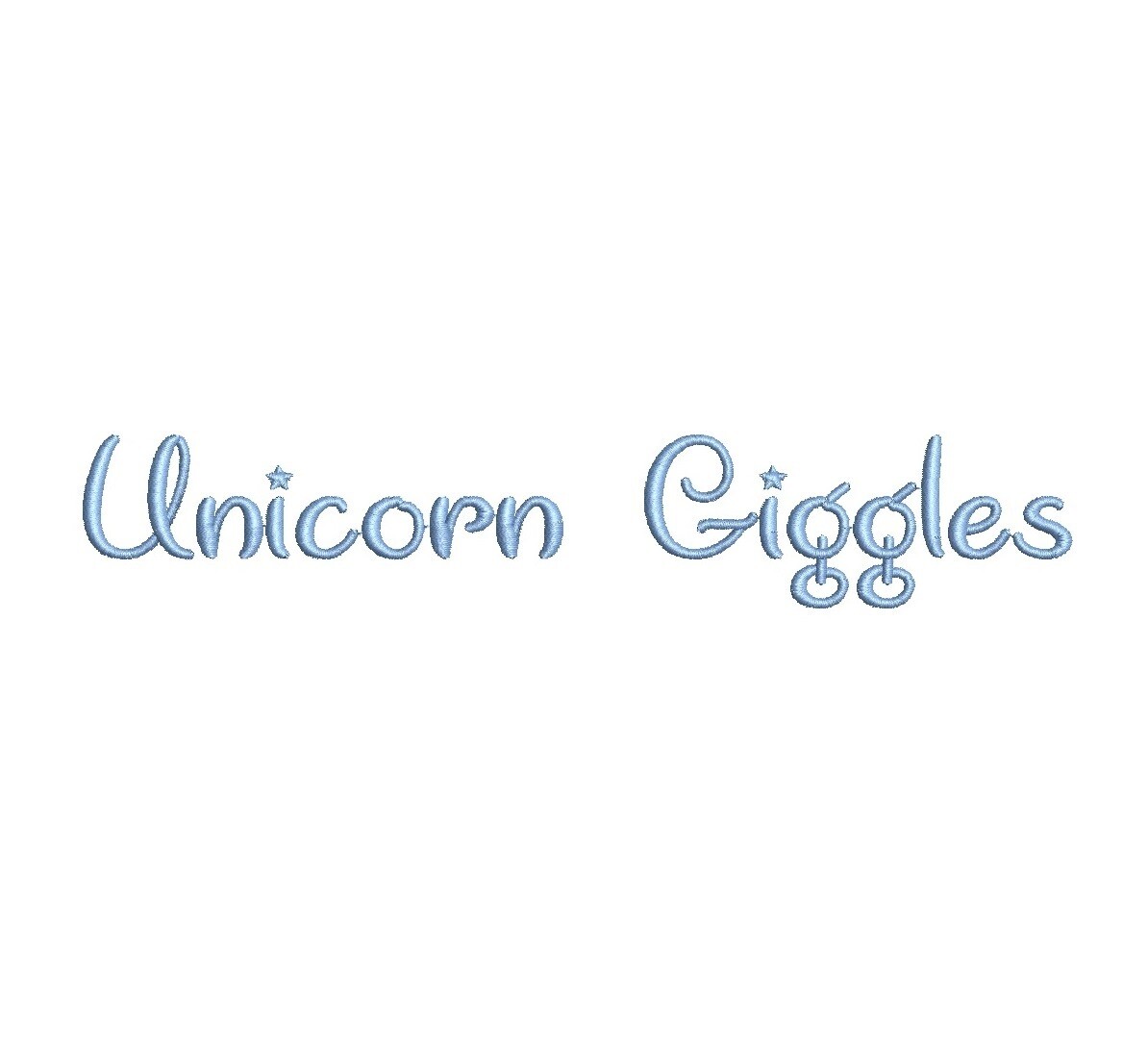
Unleash the enchantment of 'Unicorn Giggles Regular ESA' font, tailor-made for embroidery enthusiasts seeking magical and whimsical designs. This delightful typeface adds a sprinkle of unicorn charm to your creations, filling them with giggles and wonder. Seamlessly compatible with Wilcom Studio e4.5.6 and Hatch 3 versions and above, it effortlessly integrates into your digitizing workflow. Its graceful curves and playful strokes ensure impeccable stitch quality, elevating your embroidery projects to a level of fantastical delight. Ideal for imaginative monograms, quotes, and decorative elements, this ESA font sparks creativity and guarantees a unicorn-inspired masterpiece. Embrace the magic of 'Unicorn Giggles Regular ESA' font today!